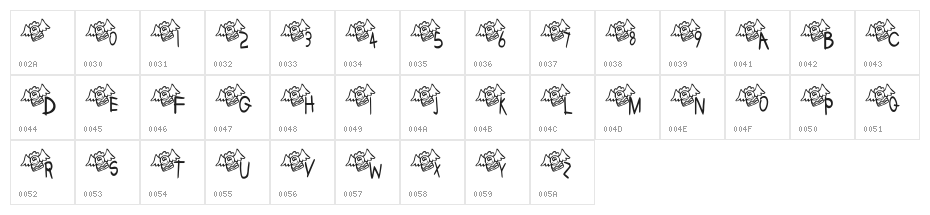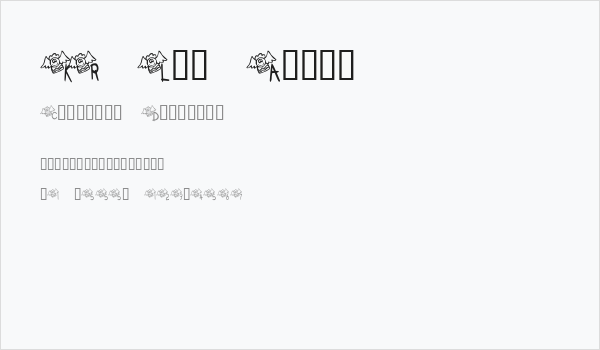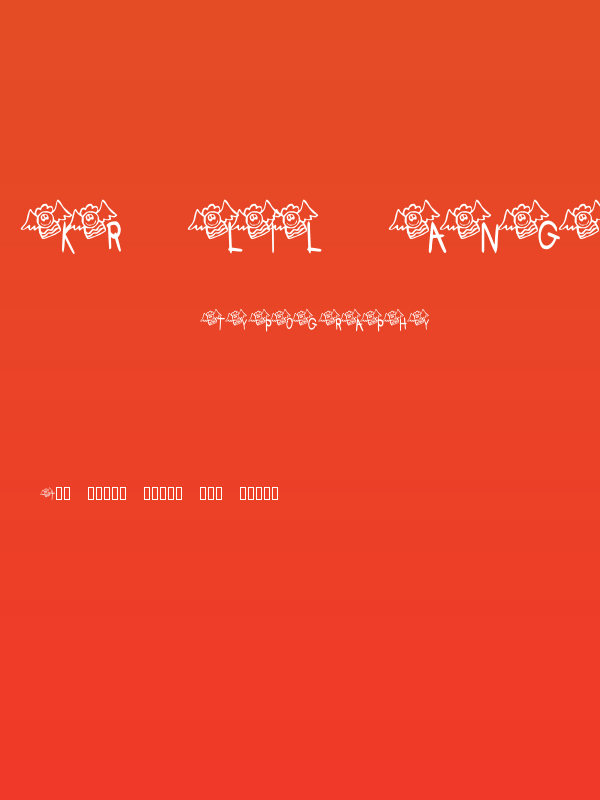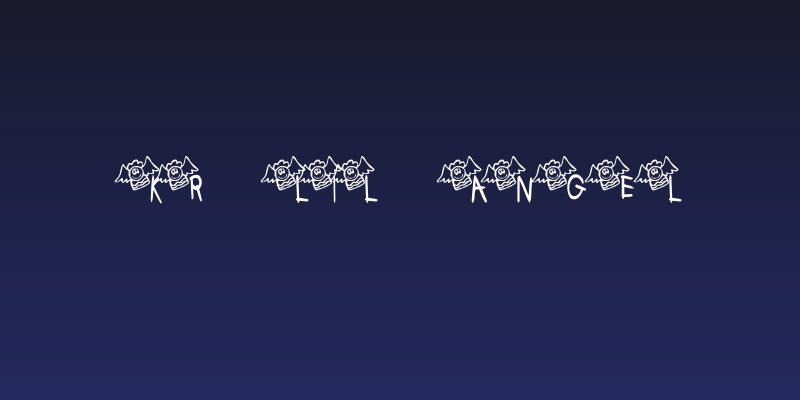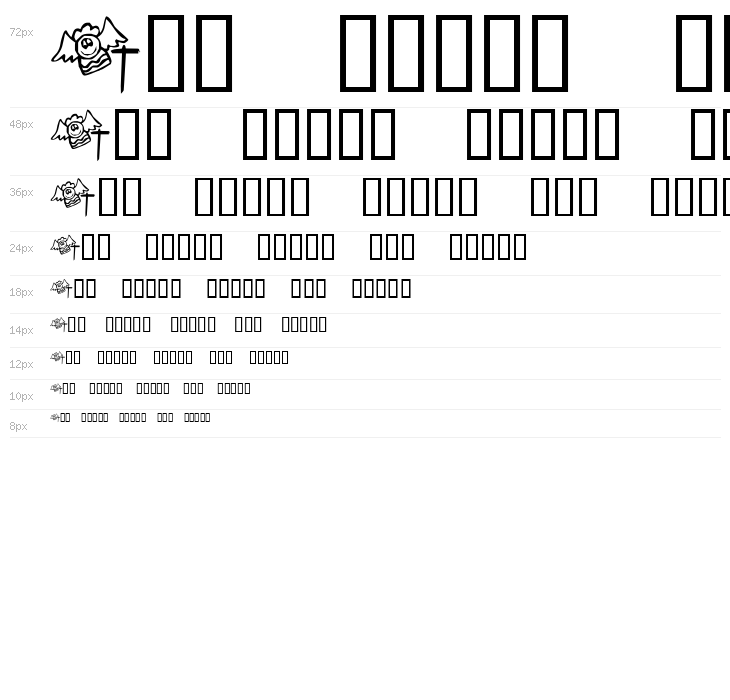
KR Lil Angel Font
KR Lil Angel Description
This whimsical and playful font features each character adorned with a cute, cartoonish angel motif. The letters and numbers are bold and slightly irregular, adding to the charm and uniqueness of the design. The angel wings and halo give the font a lighthearted and fun appearance, making it ideal for projects that require a touch of whimsy. The characters are well-defined, with a consistent style that maintains readability while offering a decorative flair. The font's distinctive style is perfect for creative projects aimed at children or any design that seeks to convey a sense of joy and playfulness.
| Overall Style | Whimsical |
| Use Case | Headlines, Logos, Decorative text |
| Proposed Projects | Ideal for children's book covers, playful greeting cards, whimsical posters, and creative branding projects. |